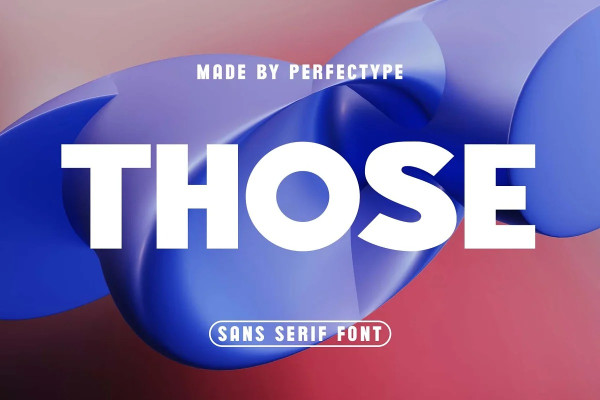
Those Sans Font
Those Sans Font, inspired by the famous minimalist logo perfect for the purposes of designing templates, brochures, videos, advertising branding, logos, invitation, layout design, elegant crafting, beauty design and other